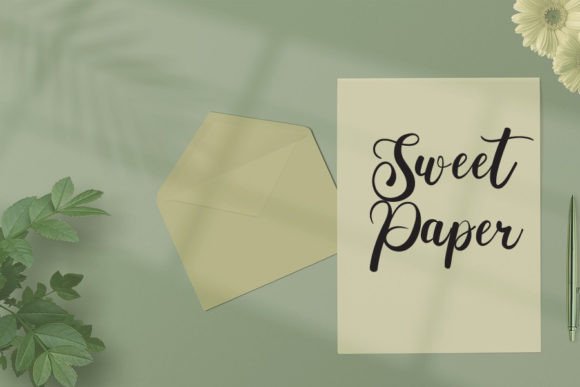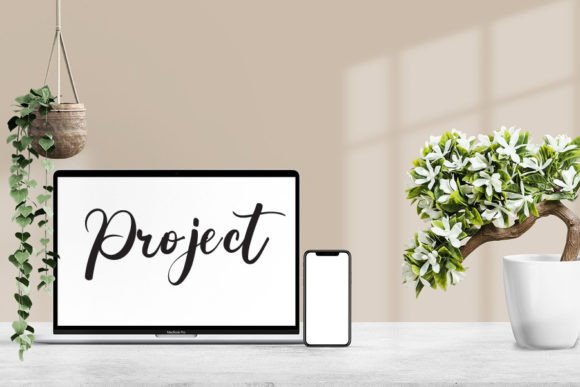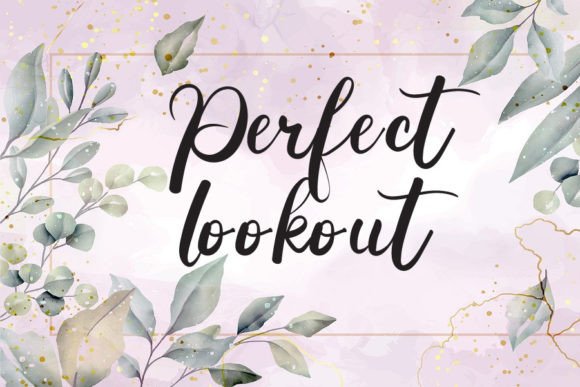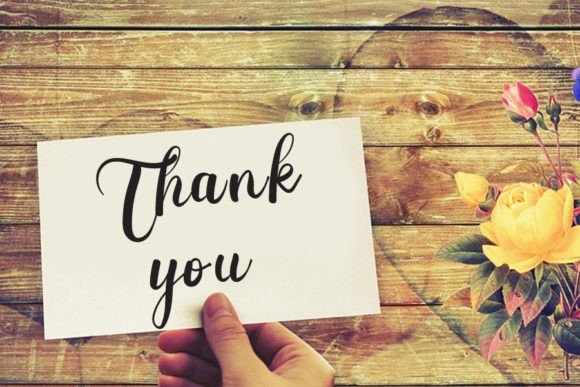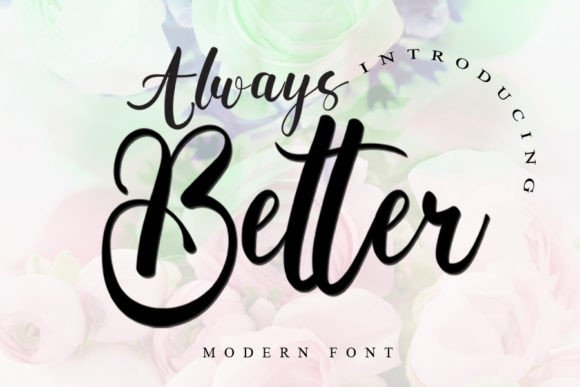
Introducing Always Better Font: Elevate Your Designs with a Fresh and Beautiful Handwritten Style
In the world of design, typography plays a crucial role in conveying messages, expressing creativity, and capturing attention. For designers, crafters, and businesses looking to make a lasting impression, having the right font is essential. This is where Always Better Font comes in – a fresh and beautiful handwritten font designed to take your designs to the next level.
What Makes Always Better Font Stand Out?
Always Better Font is a versatile and elegant handwritten font, perfect for a wide range of applications. Whether you’re creating Youtube banners, covers, logos, mockups, wedding invitations, ID cards, flyers, crafts, or any other design project, this font is sure to impress. Its unique and stylish characters will add a touch of sophistication and personality to your work, setting it apart from the rest.
One of the key benefits of Always Better Font is its adaptability. It’s designed to work seamlessly across various design platforms and applications, including:
- YouTube Banners and Covers: Create eye-catching banners and covers that showcase your brand’s personality and style.
- Logos and Branding: Develop a strong brand identity with a custom logo that incorporates the Always Better Font.
- Wedding Invitations: Add a touch of elegance and romance to your wedding invitations and save-the-date cards.
- ID Cards and Flyers: Create professional and stylish ID cards and flyers that grab attention.
- Crafts and DIY Projects: Use Always Better Font to add a personal touch to your craft and DIY projects, such as handmade cards, gift tags, and more.
Boost Your Business with Always Better Font
By incorporating Always Better Font into your designs, you can elevate your business’s visual identity and take it to the next level. A well-designed font can:
- Enhance Brand Recognition: A unique and stylish font can help establish your brand’s identity and make it more memorable.
- Increase Engagement: Eye-catching designs can capture attention, encourage interaction, and drive engagement.
- Convey Professionalism: A high-quality font can convey a sense of professionalism and attention to detail, helping to build trust with your audience.
Why Choose Always Better Font?
With so many fonts available, why choose Always Better Font? Here are just a few reasons:
- Unique and Fresh Design: Always Better Font offers a distinctive and modern design that will set your work apart.
- Elegant and Versatile: This font is suitable for a wide range of applications, from formal to informal designs.
- Easy to Read: The clear and legible characters ensure that your message is conveyed effectively.
Always Better Font is a beautiful and versatile handwritten font that’s perfect for designers, crafters, and businesses looking to elevate their designs. With its unique and stylish characters, adaptability, and ease of use, this font is sure to become a go-to choice for a wide range of applications. By incorporating Always Better Font into your designs, you can enhance your brand’s visual identity, increase engagement, and take your business to the next level.